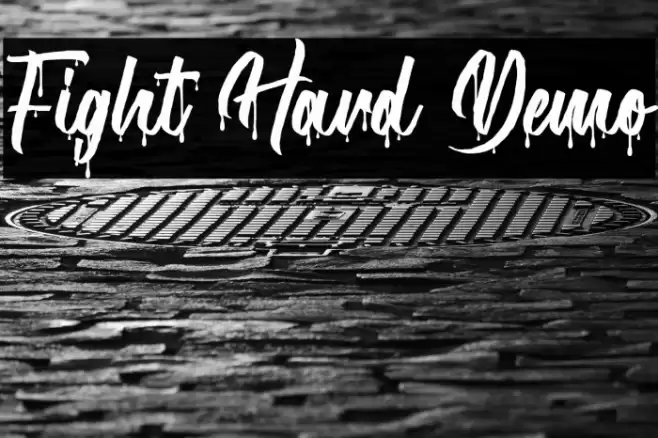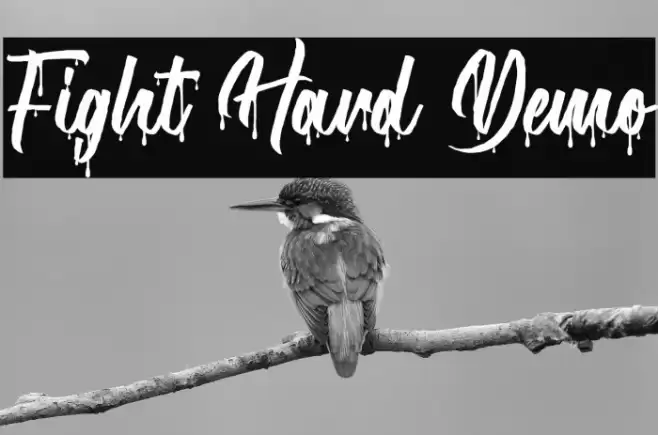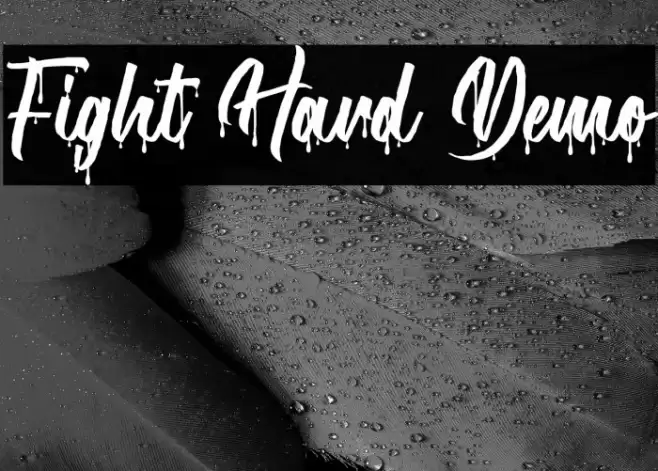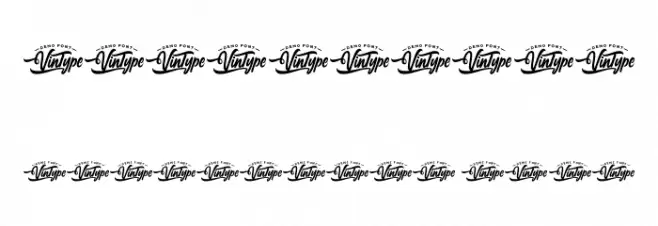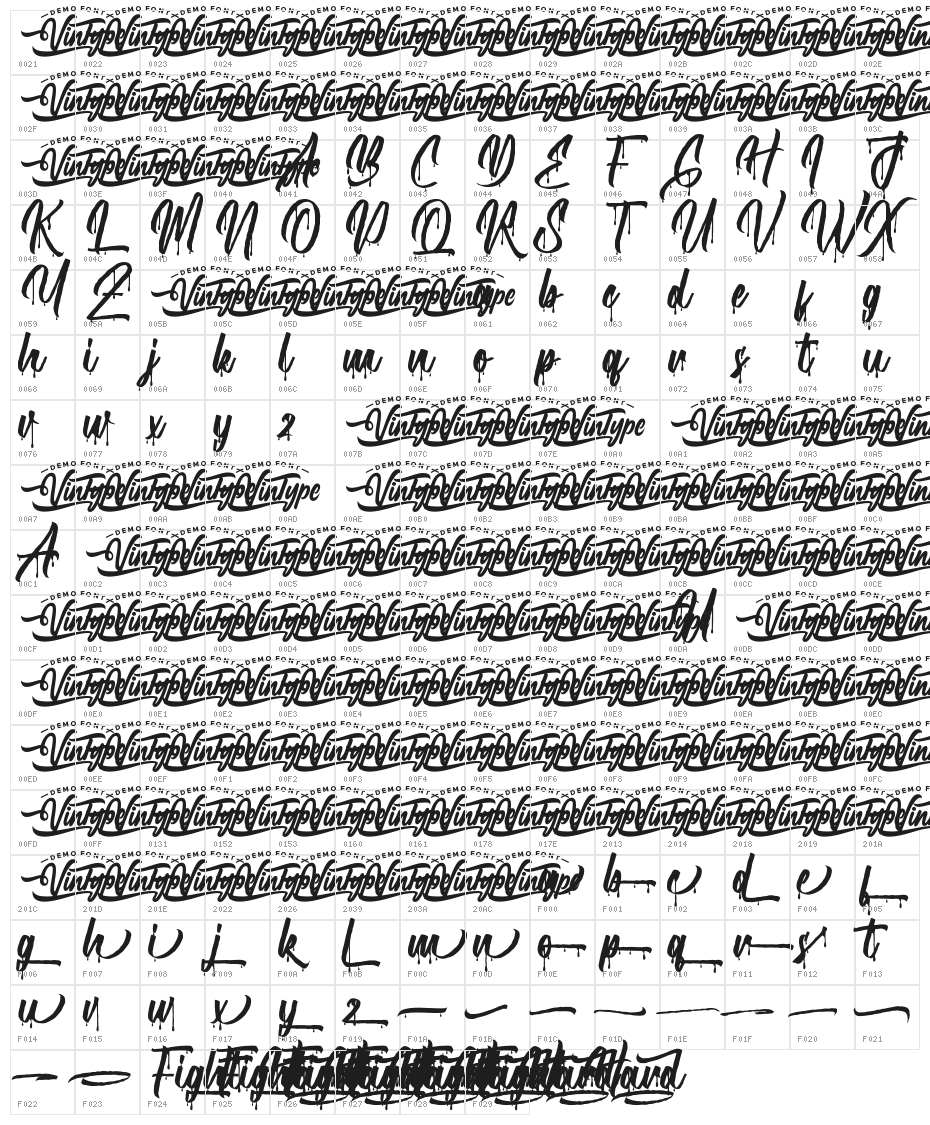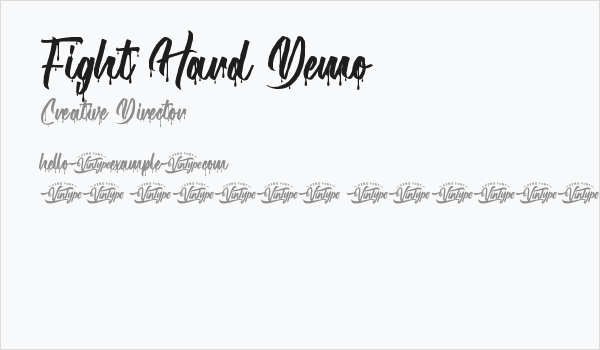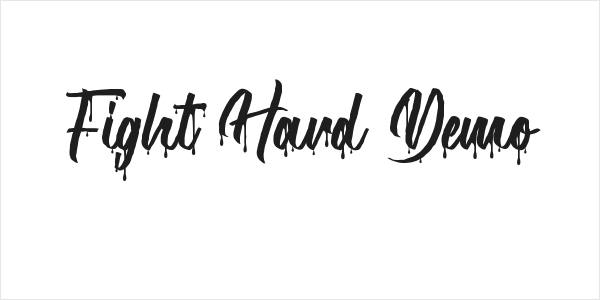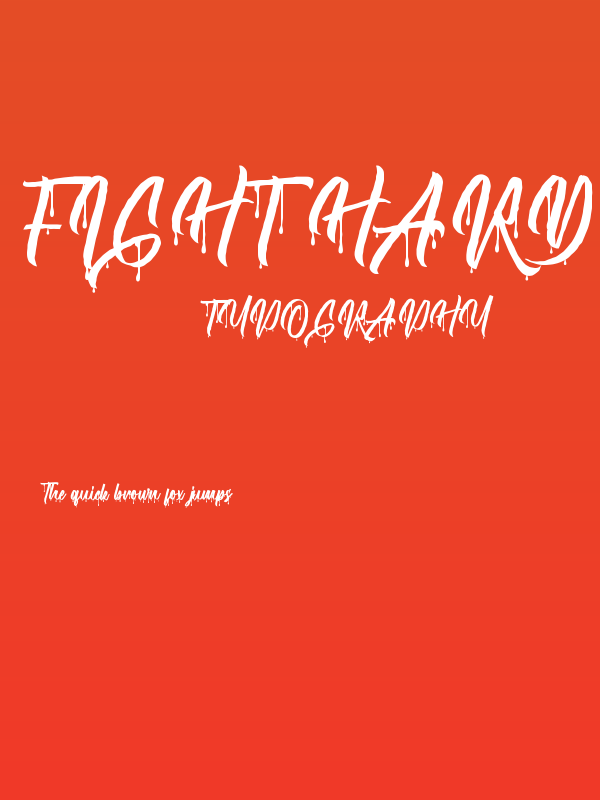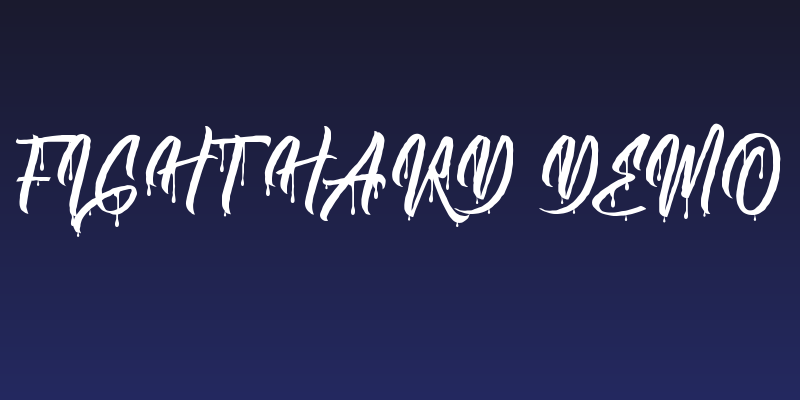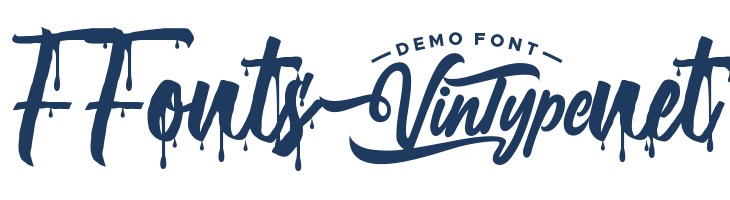
Fight Hard Demo Font
Fight Hard Demo Description
This font features a bold, graffiti-inspired style with a dripping effect that gives it a rebellious and edgy appearance. The uppercase and lowercase letters are designed with a fluid, cursive script that mimics the look of spray paint. The characters have a dynamic flow, with varying stroke thickness that adds to the overall energetic feel. The numbers and special characters maintain the same artistic style, ensuring consistency across all elements. This font is perfect for projects that require a bold statement or an urban, street-art vibe.
A bold, graffiti-inspired script font with a dripping effect from Uncategorized fonts.
- Proposed Projects: Ideal for street art designs, music album covers, urban-themed posters, and edgy branding projects.
- Overall Style: Modern, Urban
- Use Case: Logos, Posters, Album Covers